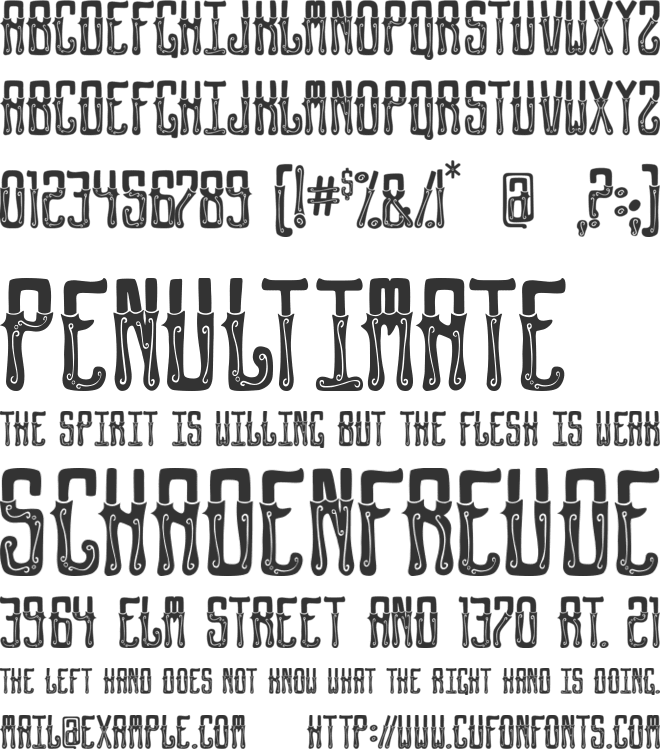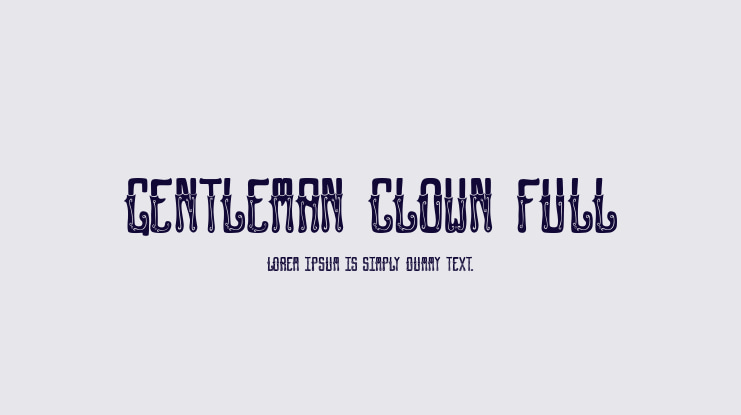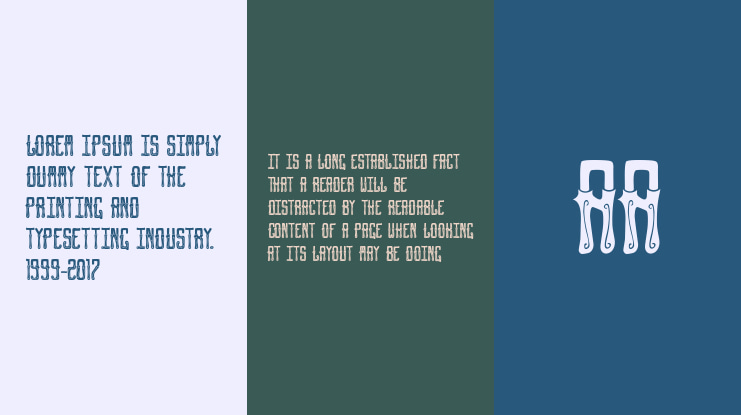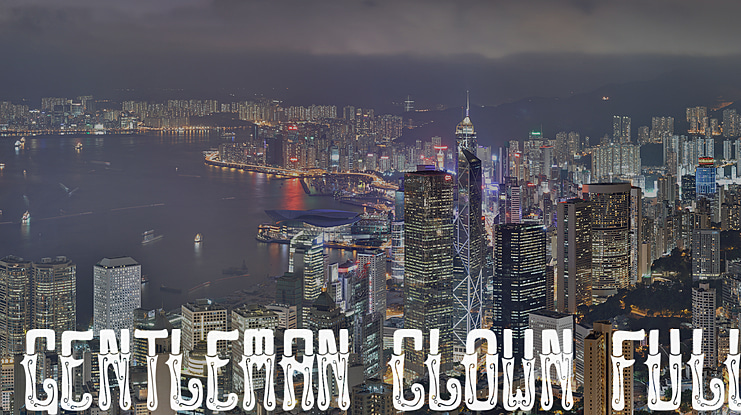
GENTLEMAN CLOWN FULL Font Family
There are two font files in the download but its basically three different versions of the font. One open style, one half full, and one completely full. Be sure to read the .text file before any use. This font isn't free but its ridiculously cheap. Enjoy!